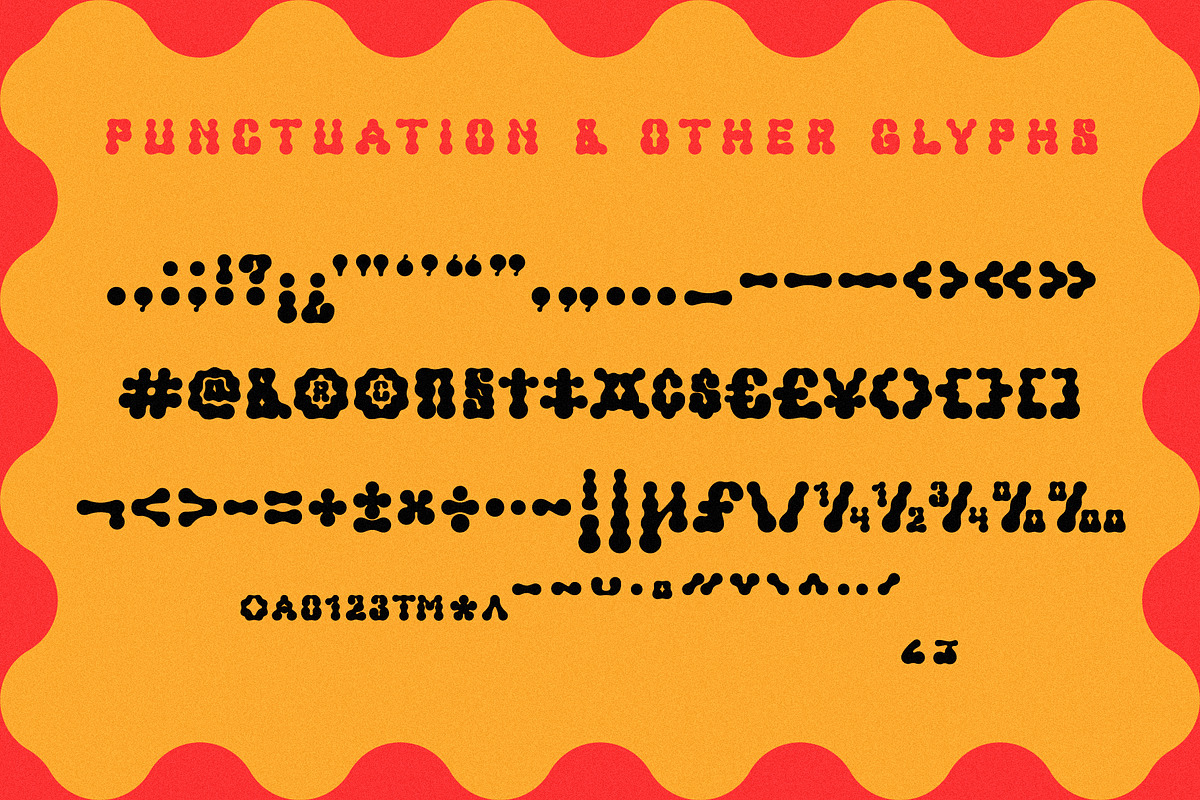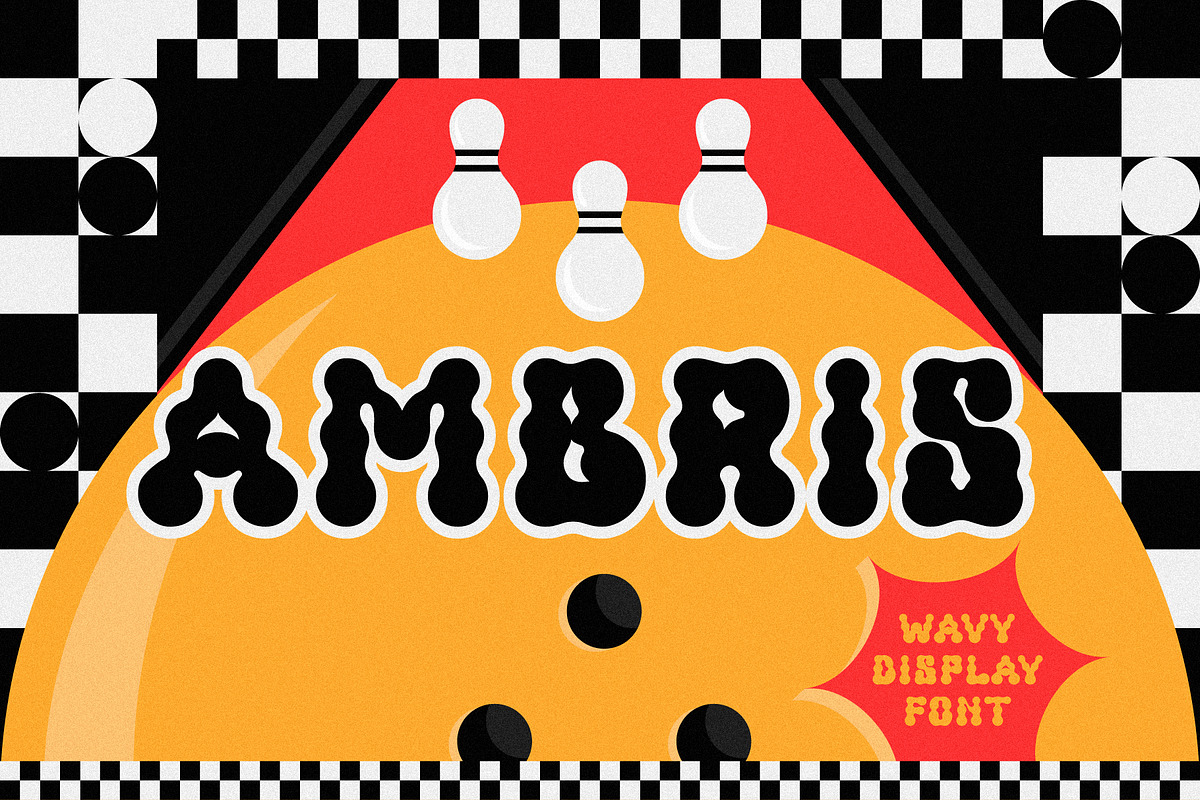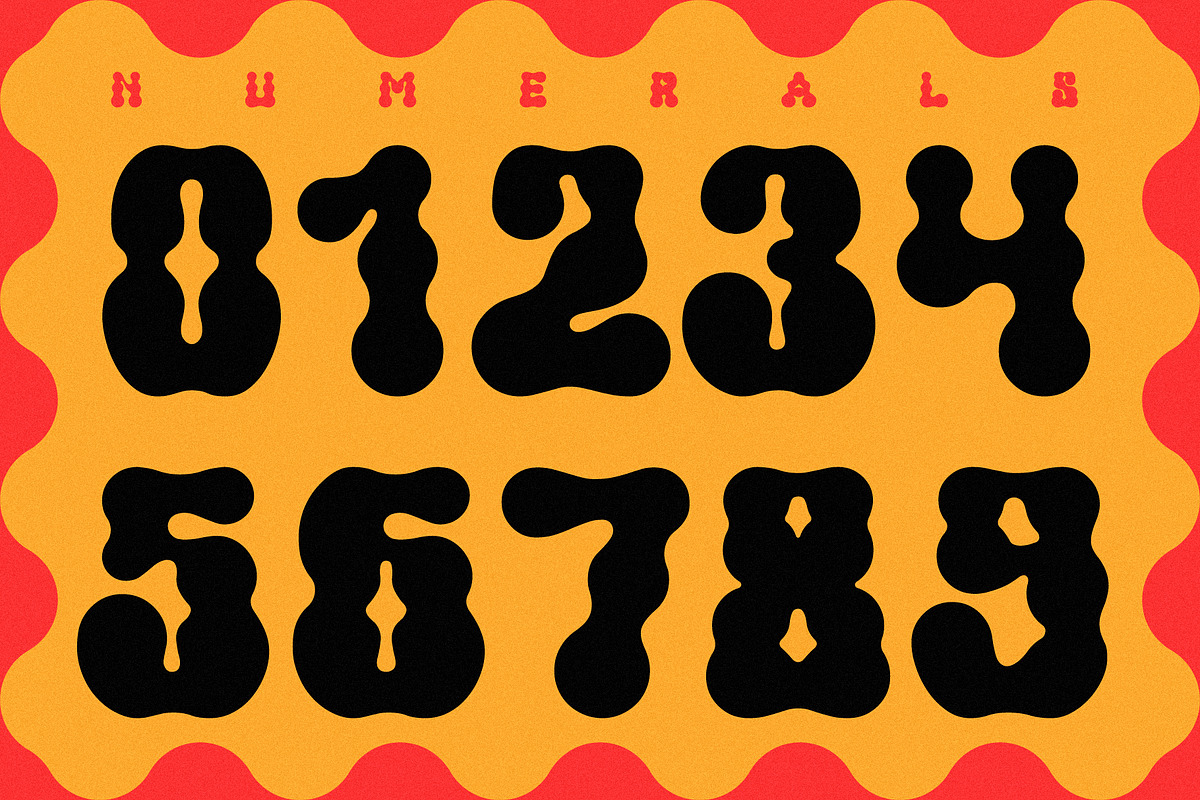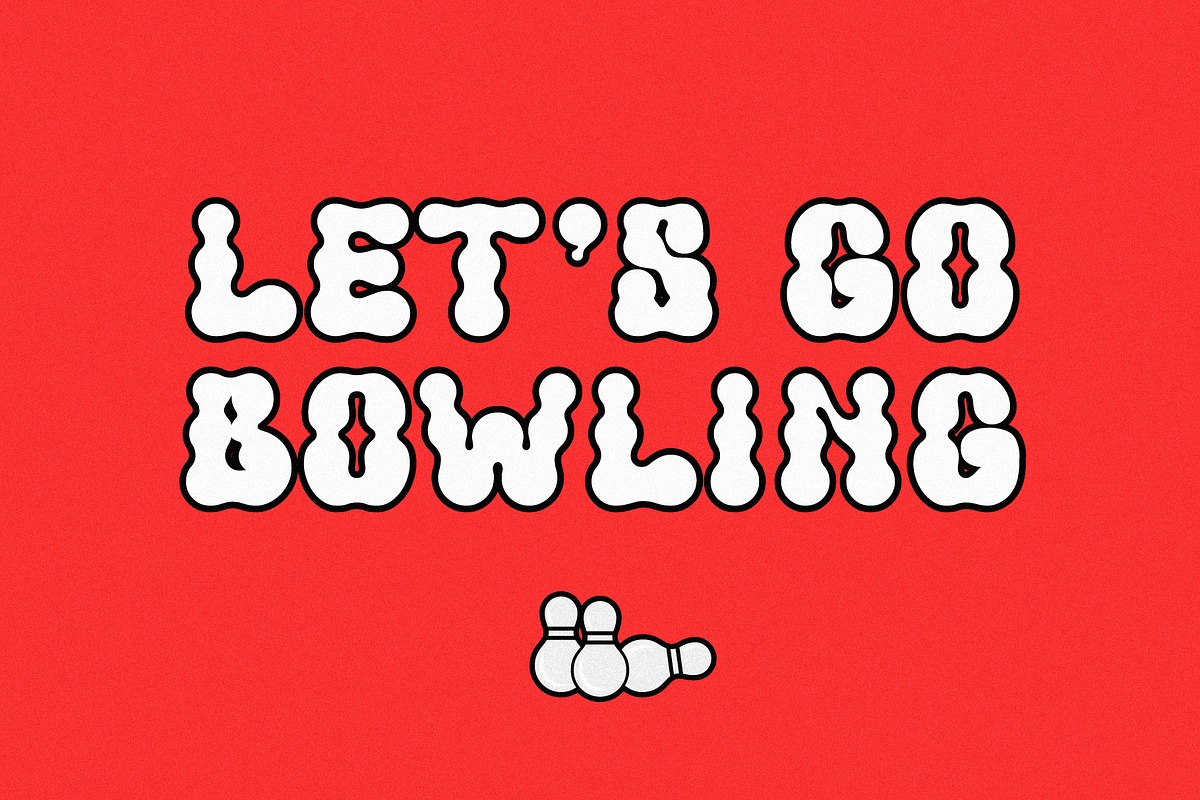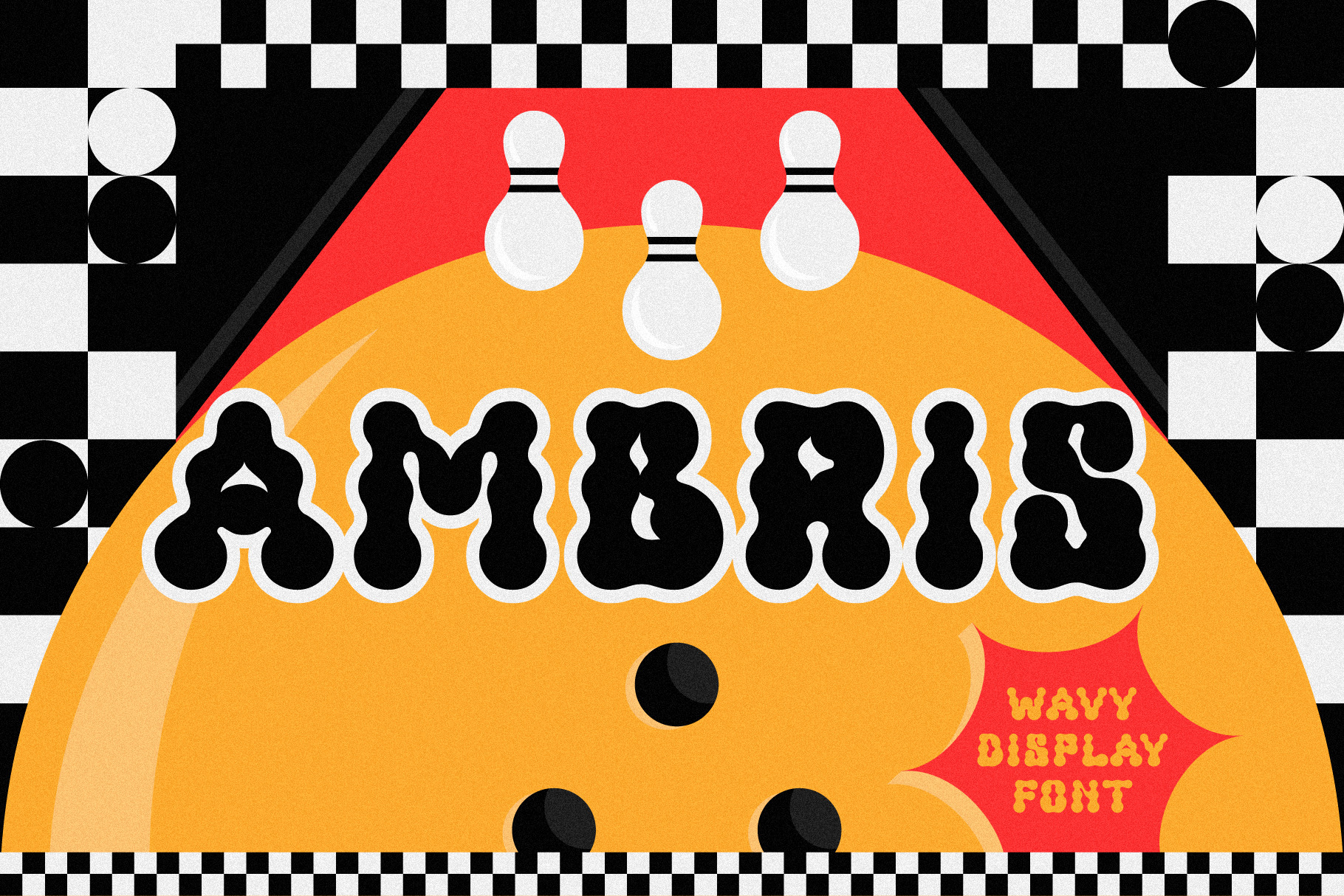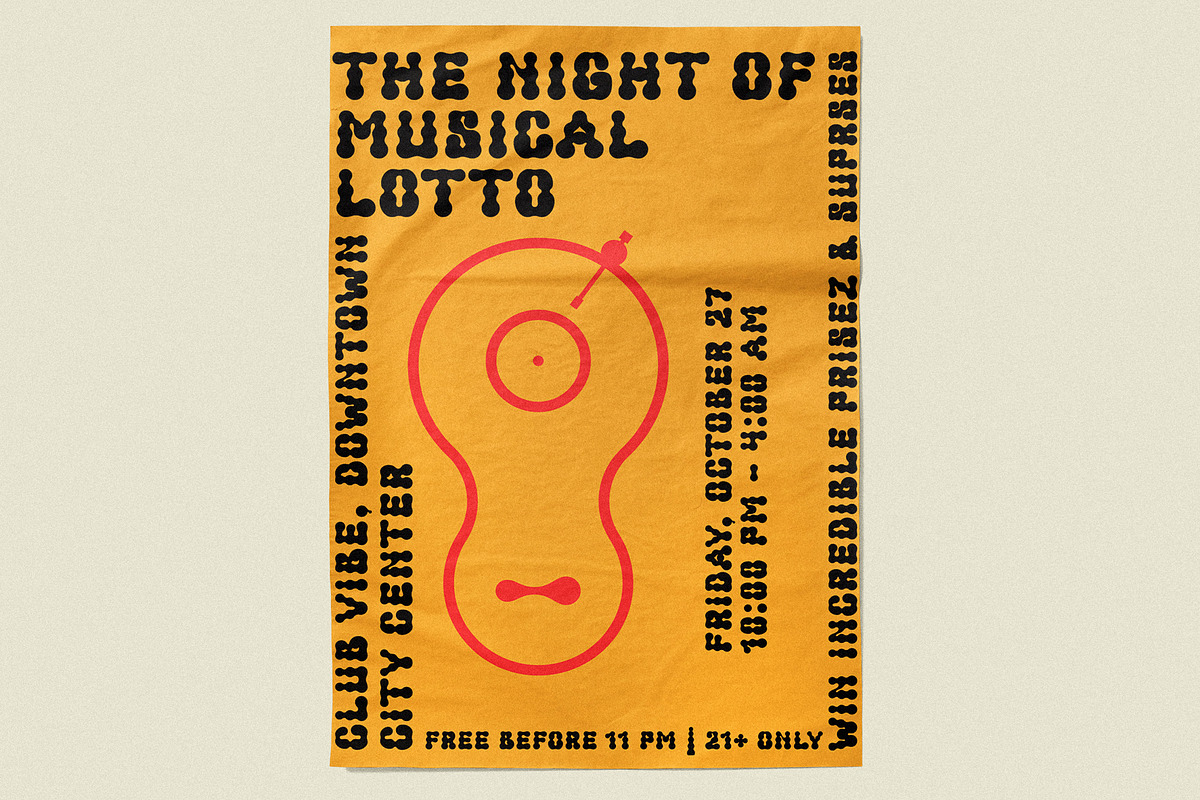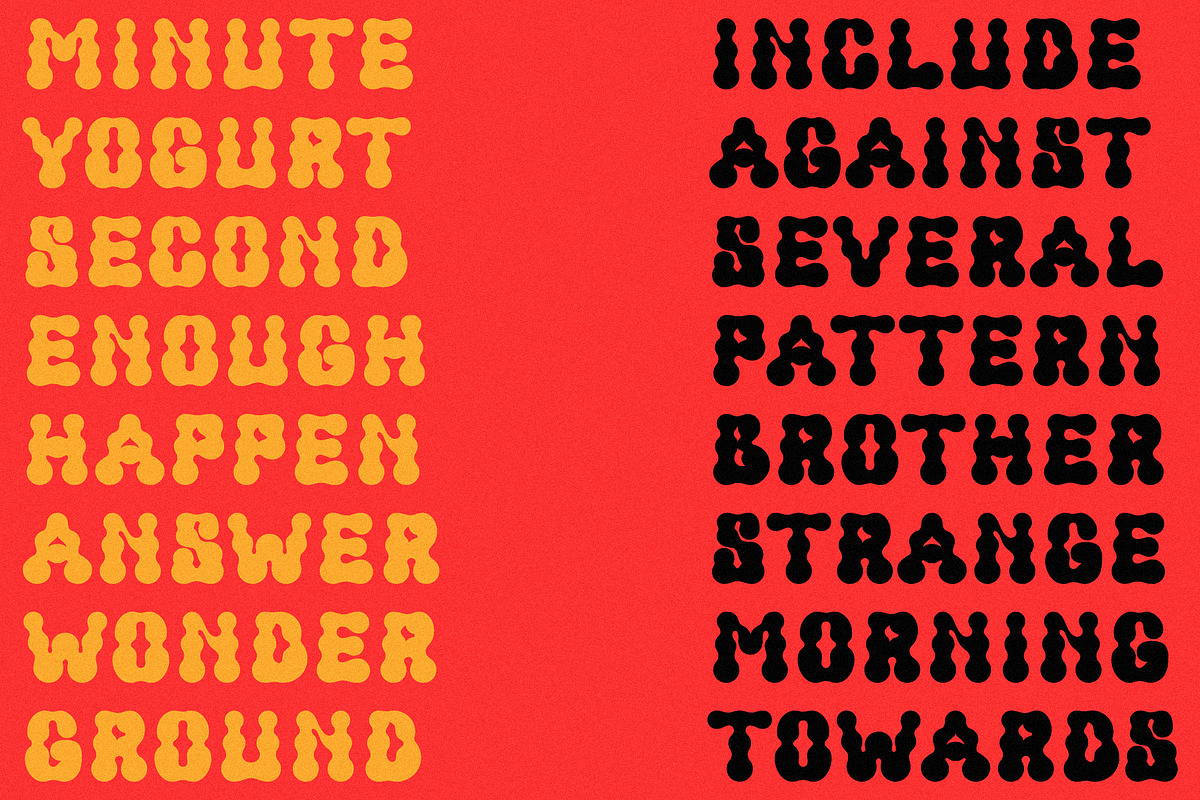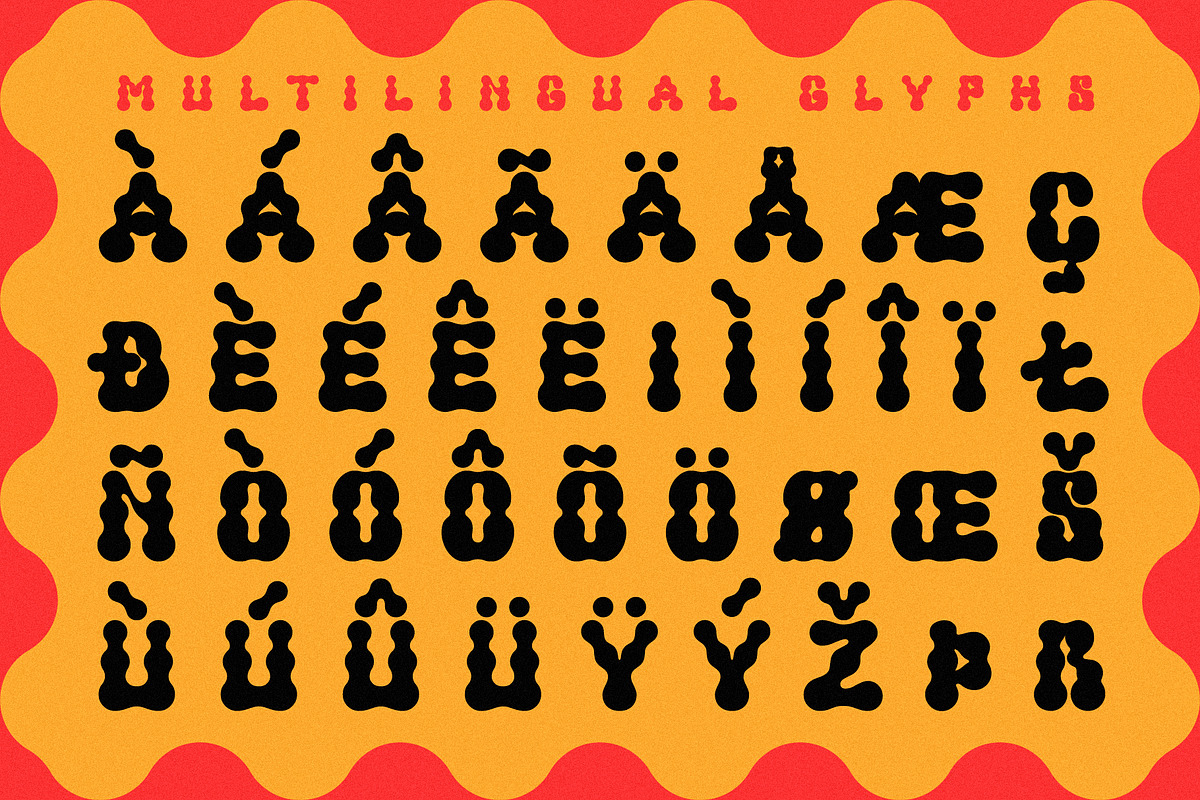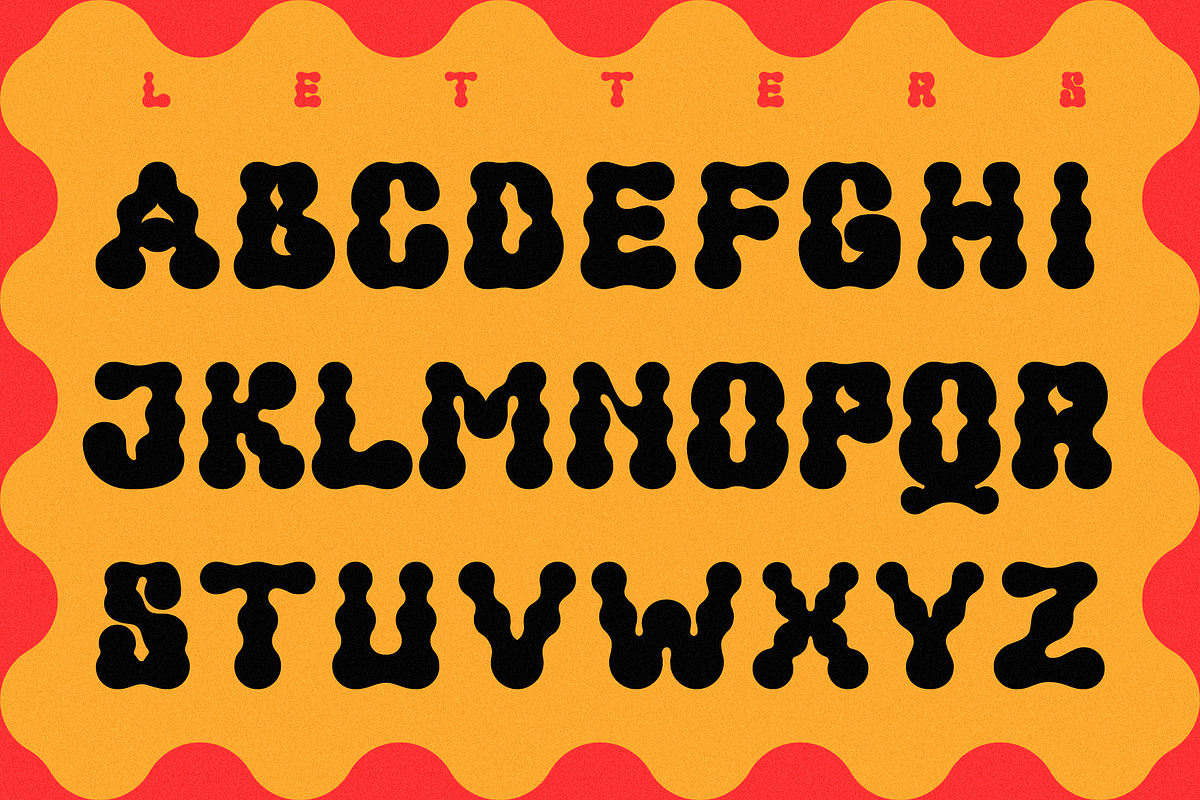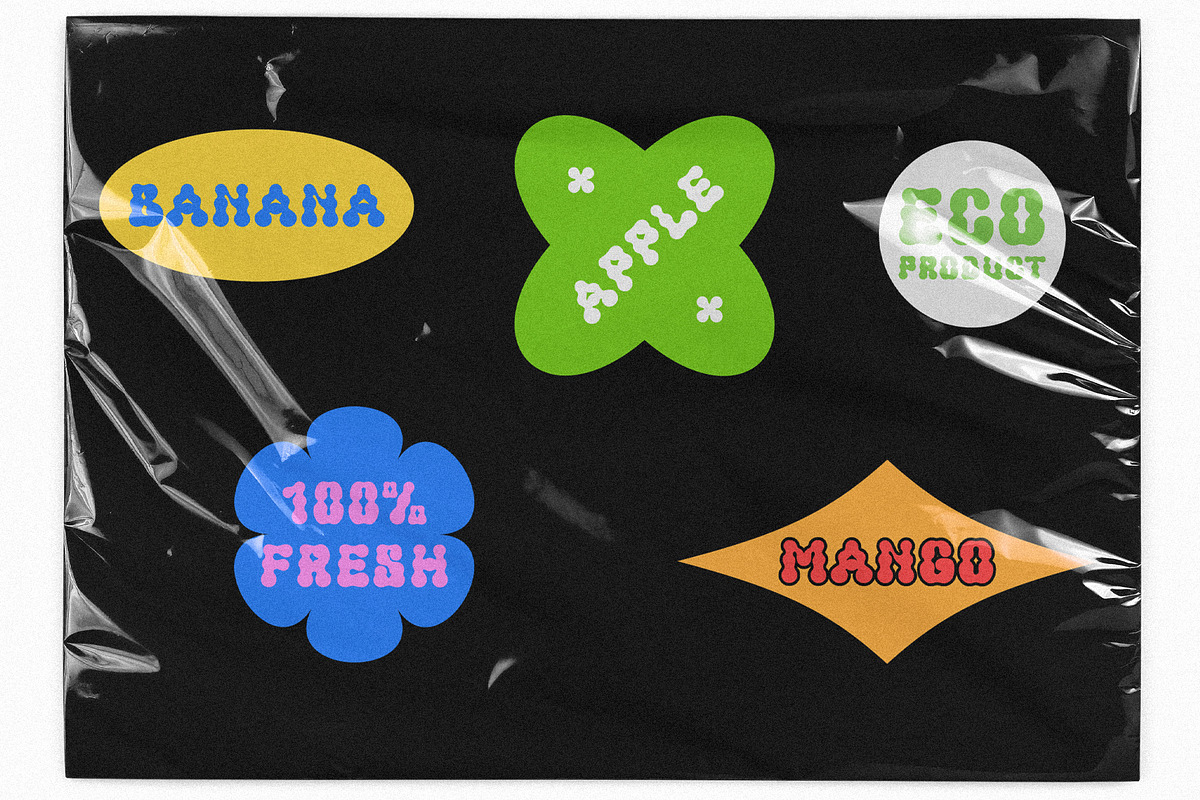
Ambris Display Font
Strike a balance between retro charm and playful modernism with Ambris font. We've drawn inspiration directly from the classic bowling pin, imbuing each character with a dynamic, undulating shape that mimics its robust base and slender neck. Ideal for attention-grabbing titles, expressive branding, event posters, or any design where personality and a memorable visual rhythm are paramount.